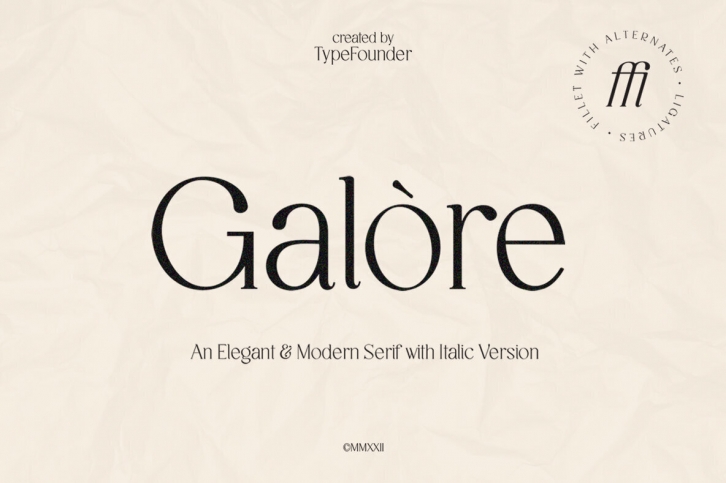
Galore is an Elegant & Modern Serif typeface that looks incredible in both large and small settings as a display with italic version. Suitable for any branding purpose.